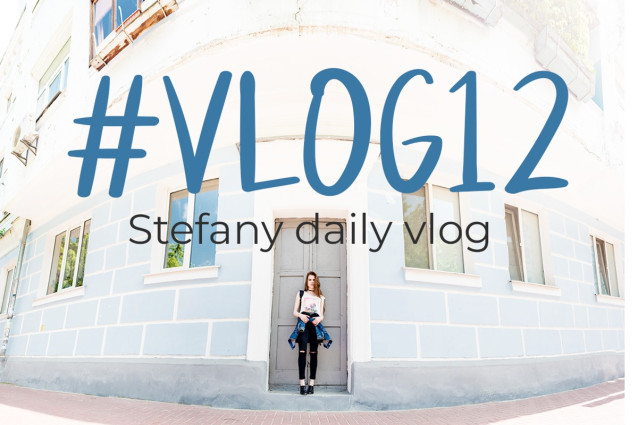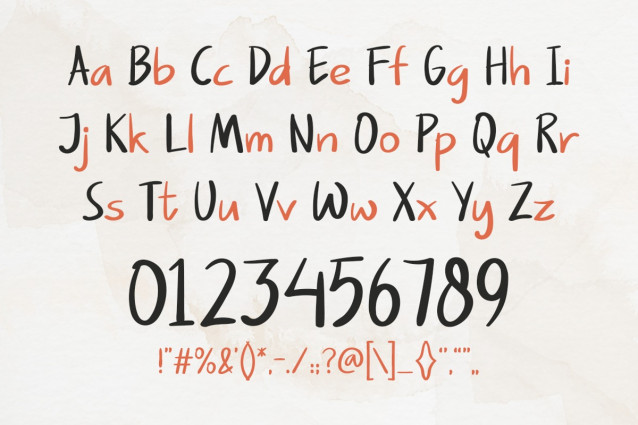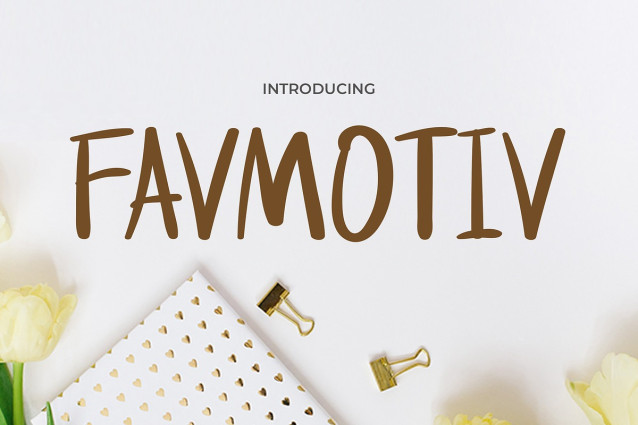
Favmotiv Font
FavMotif Font, a captivating display font designed to elevate your products and brand identity.With its delicate yet powerful strokes, FavMotif exudes an air of elegance and serenity, making it the perfect choice for those seeking to leave a lasting impression.
Whether you’re crafting luxurious packaging, refining your brand logo, or designing elegant invitations, FavMotif offers a versatile canvas that effortlessly communicates refinement and class. Embrace the subtle allure of this exquisite font and let it breathe life into your designs, setting you apart in a world where elegance reigns supreme.